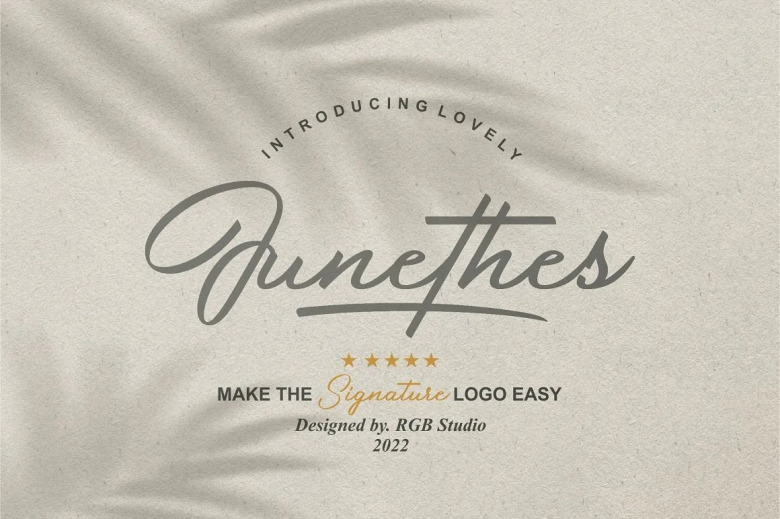
Junethes Font
Junethes is a sweet stylish script signature font with legibility and authenticity. Use Junethes for any design project that requires a personalized appearance! Suitable for digital lifestyle design Ads banner, wall displays, presentations, business cards, branding, exhibitions are perfect for shirt prints, mugs, web, social media posts, captions, and more!
Junethes Signature Script Font